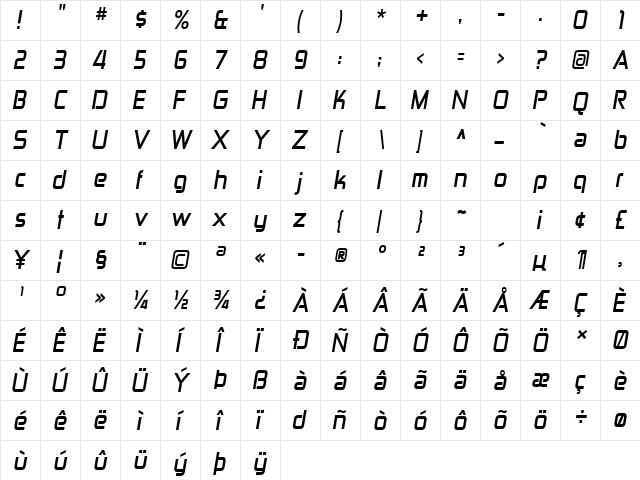
Zekton Rg Bold Italic
Bold Italic · Ray Larabie Ray Larabie ·
Design Context for Zekton Rg Typeface
Zekton Rg is a composed and adaptable typeface that performs quietly and consistently across a wide range of design contexts. The slanted form adds forward momentum and visual energy. Its bold stroke weight gives it real presence on the page.